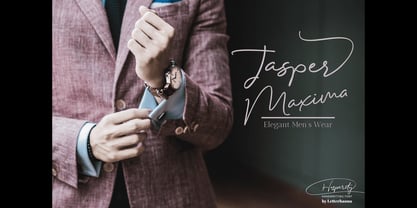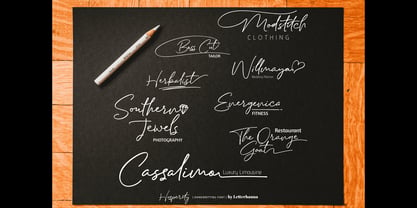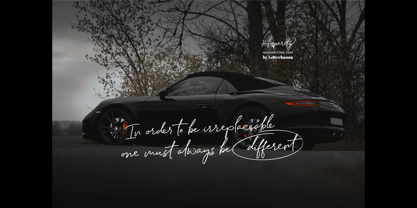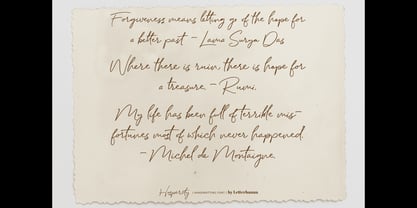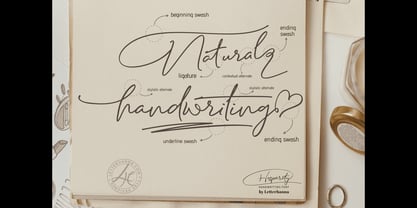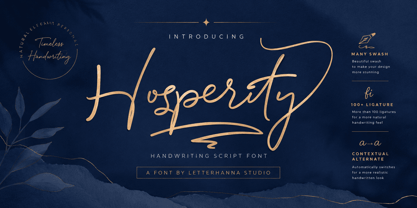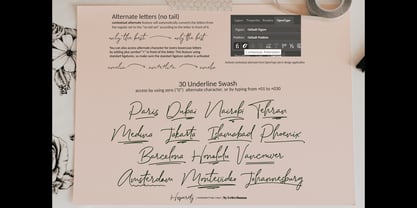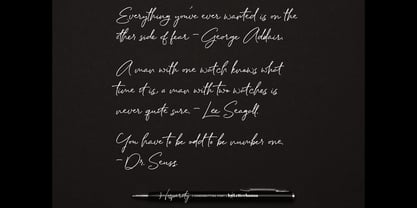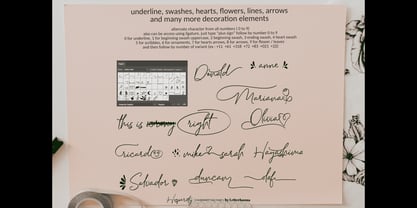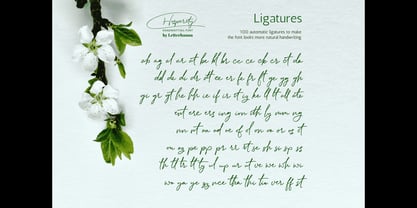
Hosperity
by Letterhanna Studio
The Hosperity Font Family was designed by Rinaldo Hasibuan and published by Letterhanna Studio. Hosperity contains 1 styles. More about this family
Introducing "Hosperity" – a captivating handwritten script font that blends artistic elegance with modern flair. Crafted by a talented font maker from Indonesia, this font is a testament to creativity and precision. With its flowing strokes and unique character, "Hosperity" adds a touch of personal charm to your designs. Whether you're designing invitations, branding materials, or any creative project, "Hosperity" is your ideal choice.
Designers: Rinaldo Hasibuan
Foundry: Letterhanna Studio